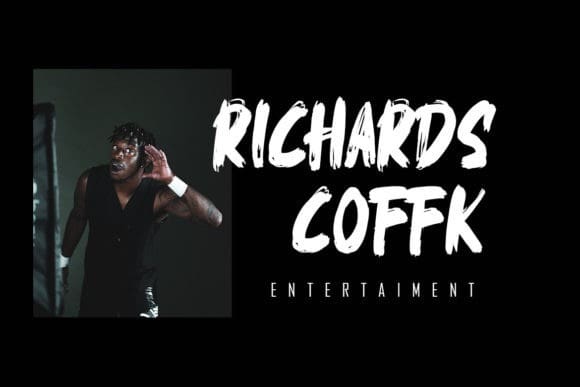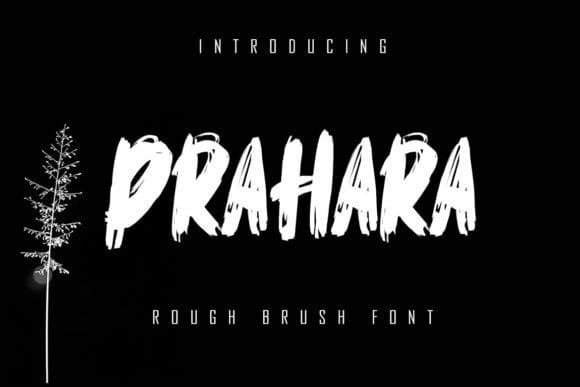
Prahara Brush Font
Prahara Brush Font is a modern and brushed display font, crafted to give your headlines and logotype projects a stylish touch. This font reads as strong, confident, and dynamic and can add tons of urban character to your designs.